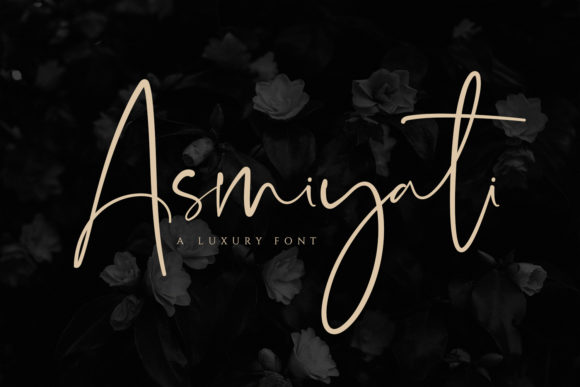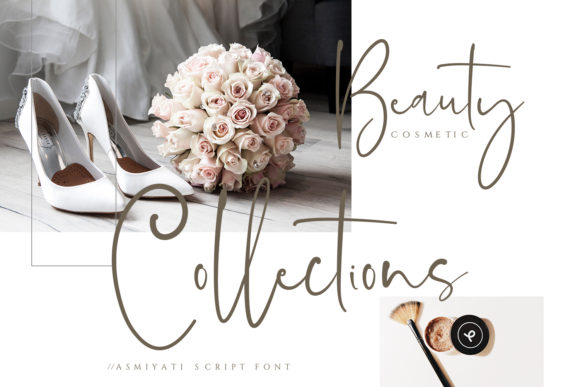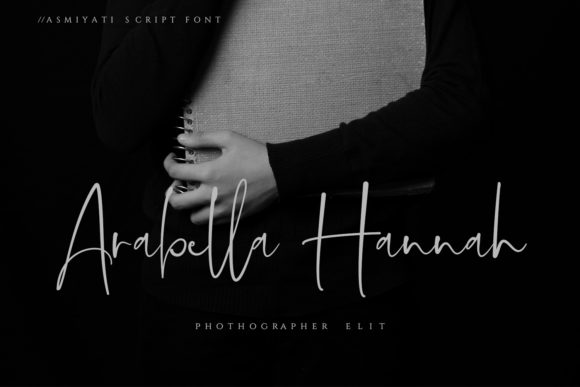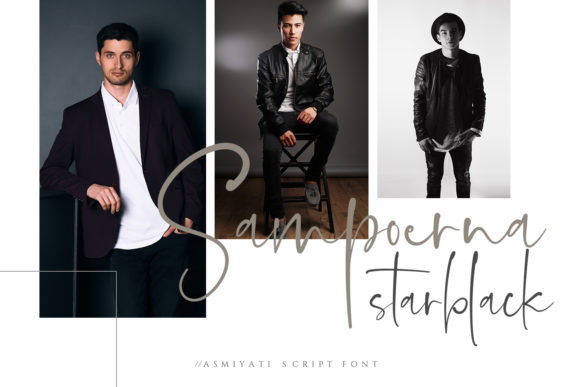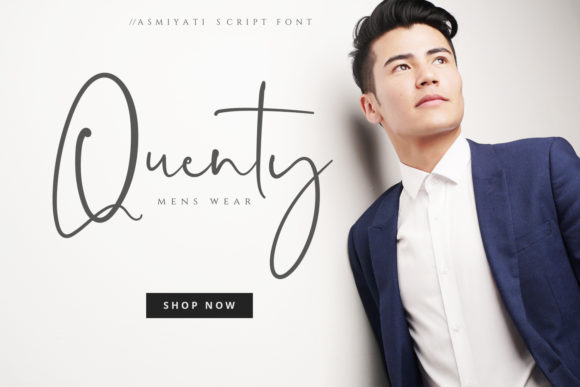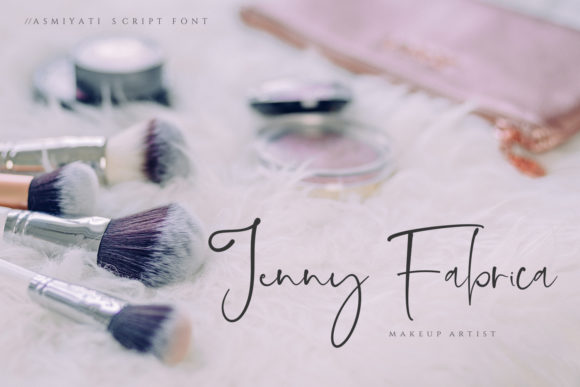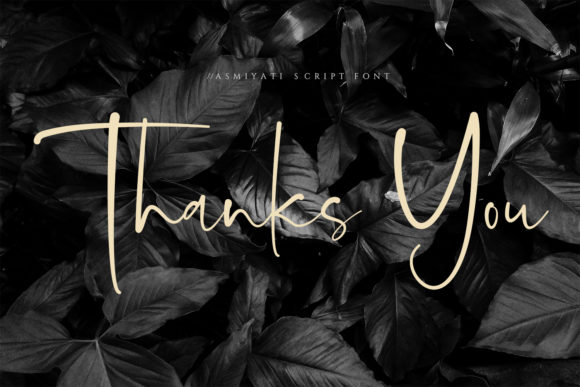
Asmiyati Font
About Asmiyati Font
The Asmiyati is an amazing handwritten script font with a luxurious style. It’s perfect for logos, name cards, magazine layouts, invitations, headers, or even large-scale artwork.